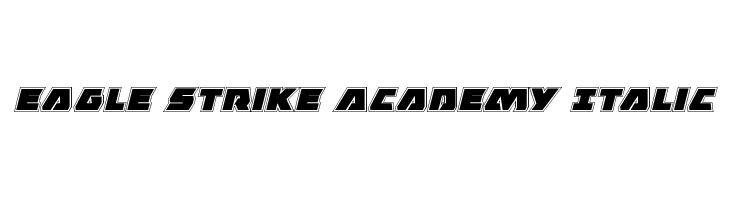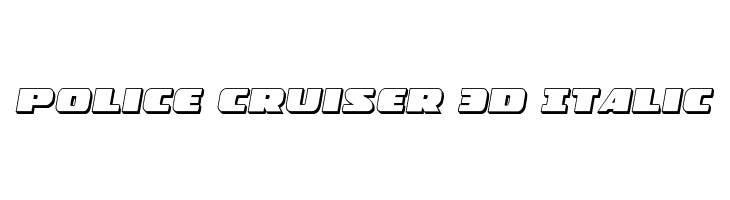
A bold, narrow font with a modern, uniform design.
A futuristic, bold font with sharp angles and geometric shapes.
A bold, rounded, and playful font with smooth, flowing characters.
A bold, geometric font with a futuristic, industrial style.
Bold, outlined font with a distressed, edgy texture.
A playful, hand-drawn font with tall, narrow characters and whimsical serifs.
A bold, angular, and futuristic italic font with a dynamic and energetic style.
An elegant script font with flowing, cursive letters and sophisticated style.